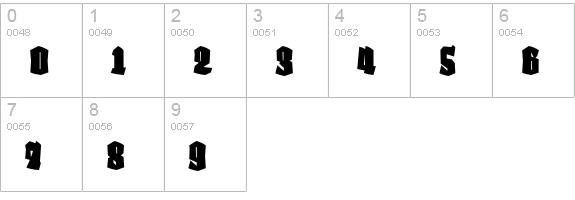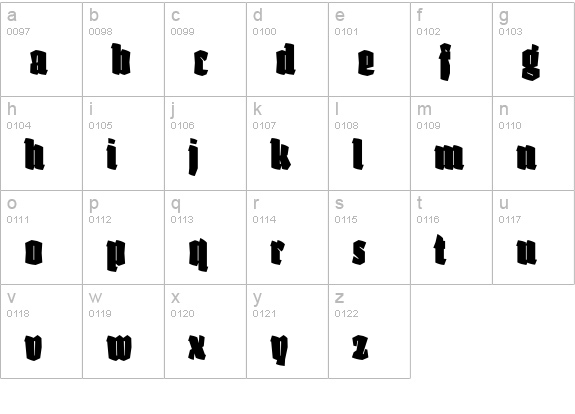
Fakir Display Black Cnd Font Details
Fakir Display Black Cnd is a maximum-weight, dramatic variant in the Fakir typeface family \xE2\x80\x94 well suited to maximum-impact headlines, posters, and packaging.
Fakir Display Black Cnd font is a striking and versatile typeface that adds a touch of elegance and sophistication to any design project. Its bold and sharp letterforms make a bold statement while retaining a sense of modernity and style. This font is perfect for creating eye-catching headlines, posters, branding materials, and more. The best part? Fakir Display Black Cnd font is available for free download at FontsMarket.com. You can easily access this stunning typeface and incorporate it into your projects without any cost. Whether you are a designer, artist, or enthusiast looking to elevate your work, Fakir Display Black Cnd font is a must-have addition to your font library. Don't miss out on the opportunity to enhance your designs with this exceptional font that combines elegance with a contemporary edge. Download Fakir Display Black Cnd font today and unleash your creativity with this beautiful typeface.